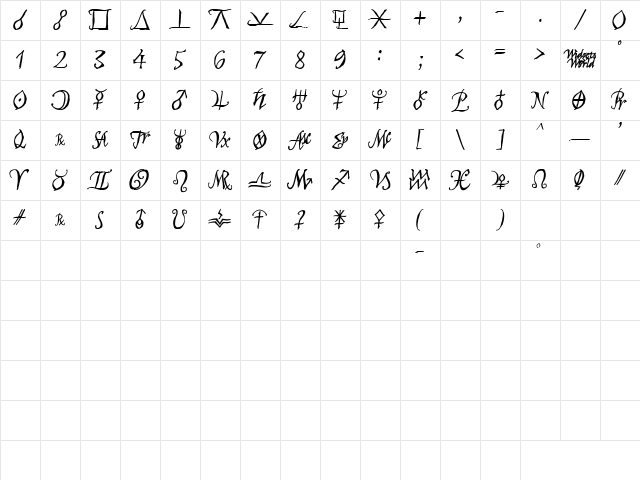
AstroScript Bold
Designer: Jason Davies
Design Context for AstroScript
AstroScript flows with the natural rhythm of handwritten lettering, making it ideal for designs that call for warmth and personal expression. Its bold stroke weight gives it real presence on the page.
Font Pairing: Combine AstroScript with a simple geometric sans for maximum contrast - the tension between flowing curves and clean structure is a classic typographic pairing.
Pro Tip: Use AstroScript for short runs of text - names, titles, or taglines. Extended body copy in script faces tires the eye quickly.